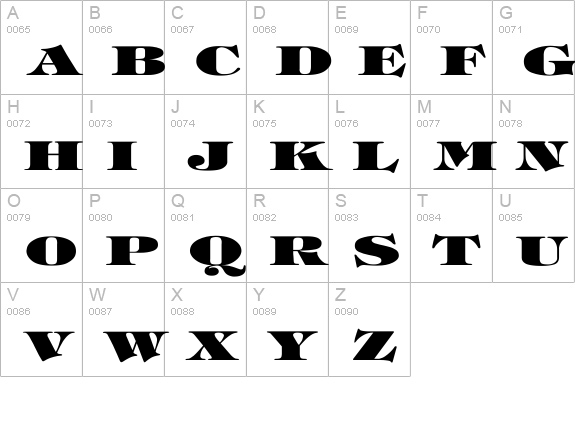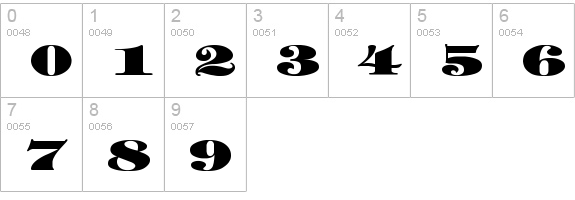
Tiffany-Heavy-Normal Ex Font Details
Tiffany-Heavy-Normal Ex is a heavy, high-impact variant in the Tiffany typeface family \xE2\x80\x94 well suited to high-impact headlines, posters, and display advertising.
Introducing Tiffany-Heavy-Normal Ex, a versatile and modern font that combines elegance with boldness. This font is perfect for those looking to make a statement in their designs, whether it's for branding, advertising, or any creative project. Tiffany-Heavy-Normal Ex exudes confidence and sophistication, with its strong and sturdy letterforms. The thick strokes command attention, while the clean lines and balanced proportions give it a timeless appeal. It strikes the perfect balance between traditional and contemporary, making it suitable for a wide range of applications. One of the standout features of Tiffany-Heavy-Normal Ex is its exceptional legibility, ensuring that your message is effortlessly conveyed to your audience. Whether used in headlines, body text, or even logos, this font maintains its clarity and readability across various sizes and mediums. The versatility of Tiffany-Heavy-Normal Ex is further enhanced by its extensive character set. With an array of special characters, ligatures, and alternates, this font offers endless possibilities for customization and creative expression. It allows you to add that extra touch of uniqueness and personality to your designs. The best part? Tiffany-Heavy-Normal Ex is available for free download at FontsMarket.com. This means that you can harness the power of this remarkable font without any cost. FontsMarket.com is a trusted source for high-quality fonts, ensuring that you can access this font with ease and confidence. So why wait? Elevate your designs with the bold elegance of Tiffany-Heavy-Normal Ex. Download it for free at FontsMarket.com and unleash your creativity today.